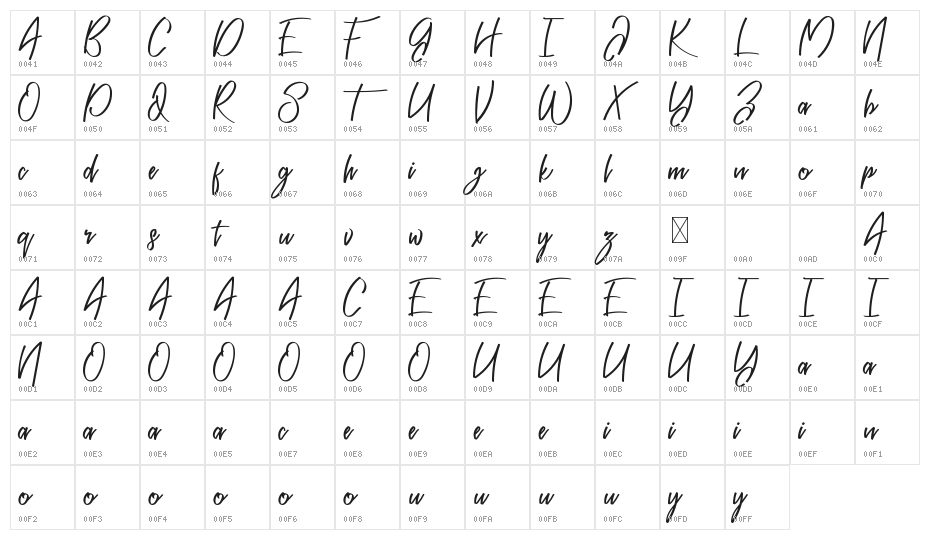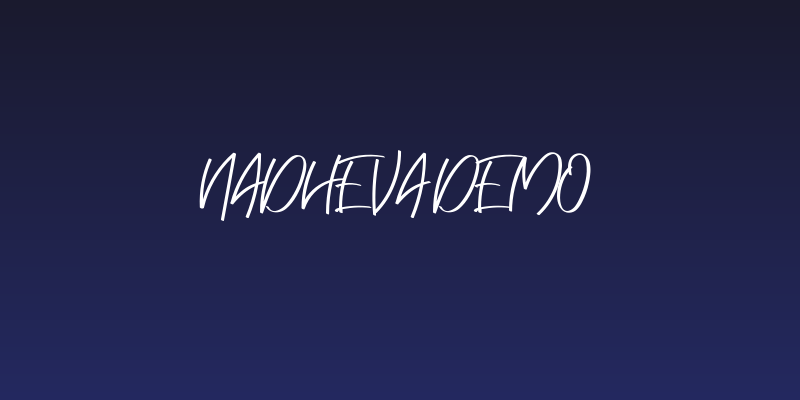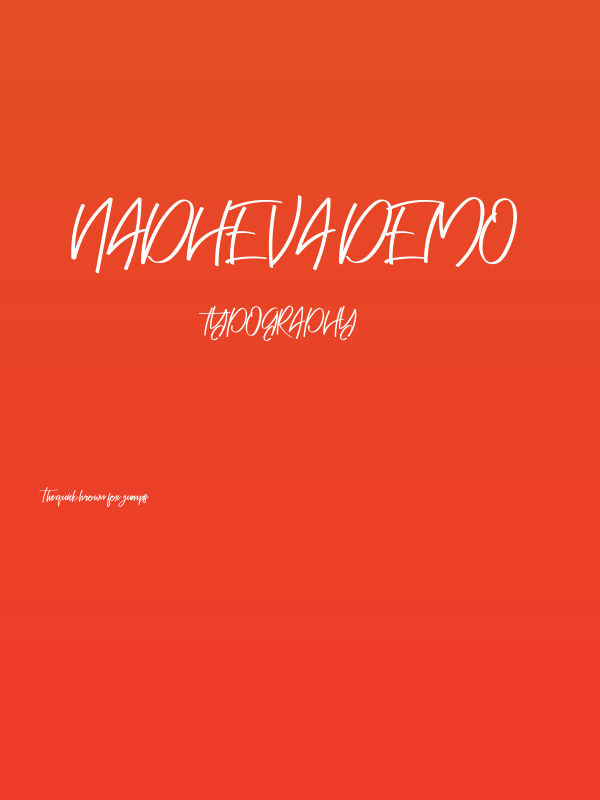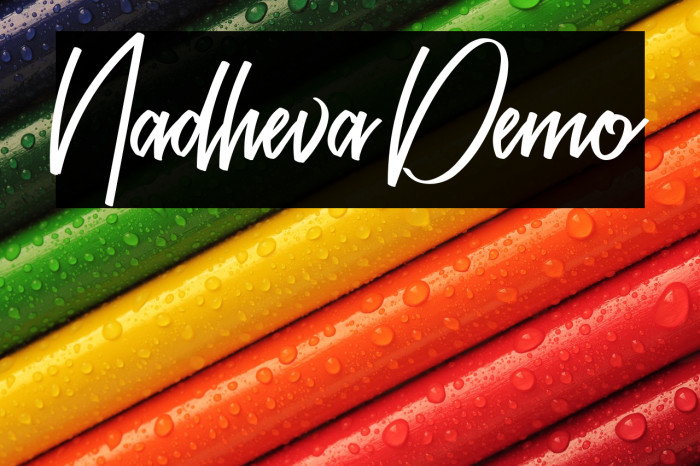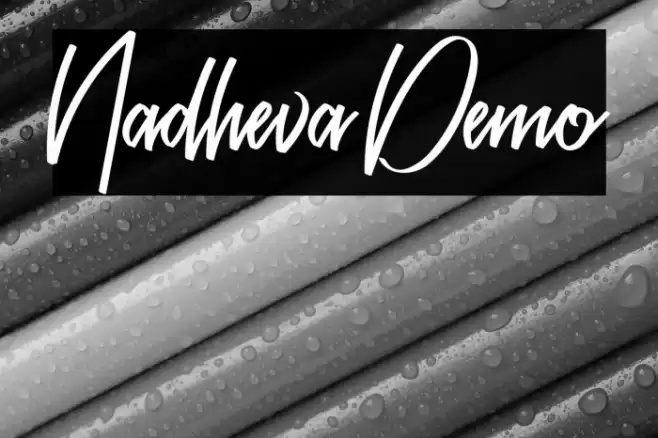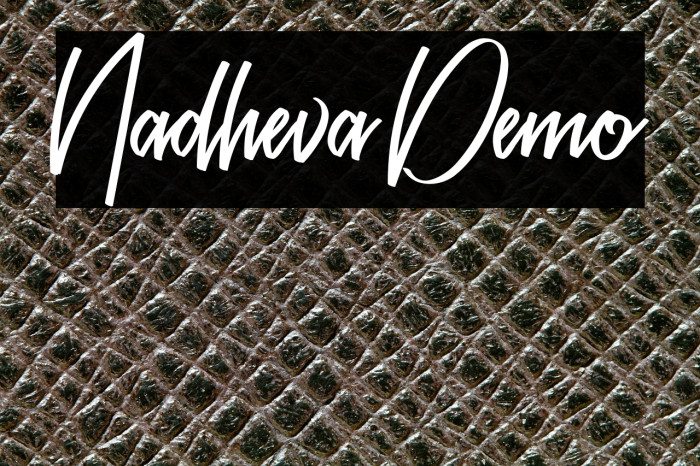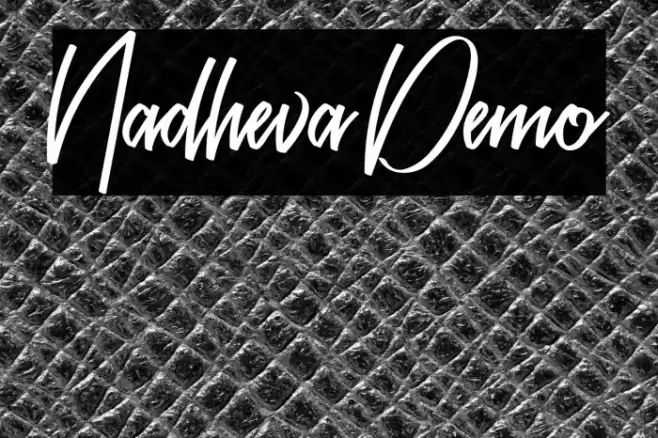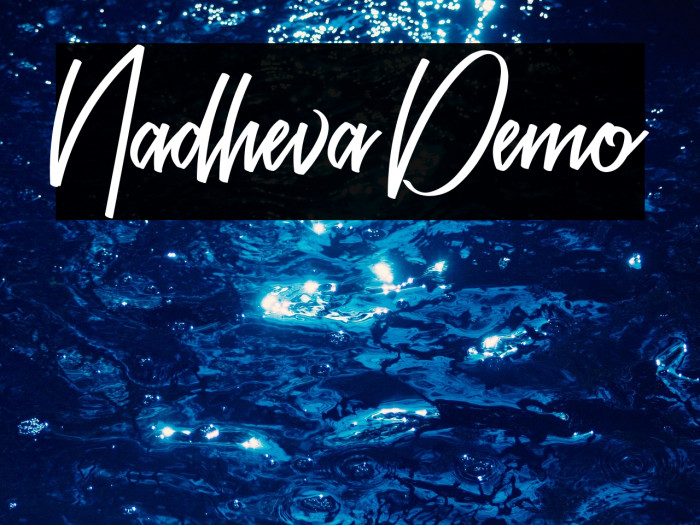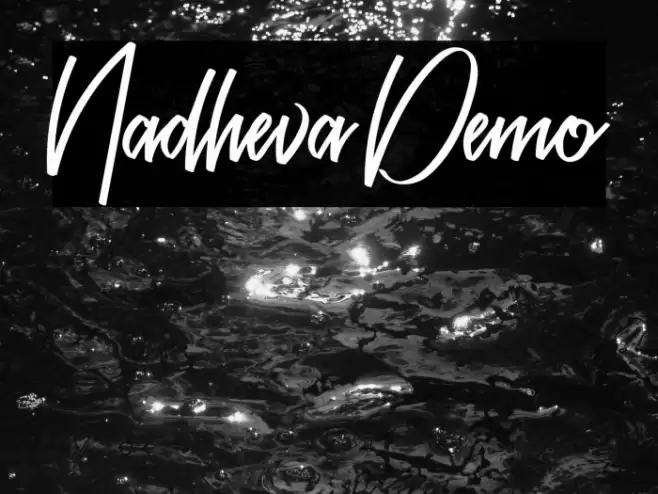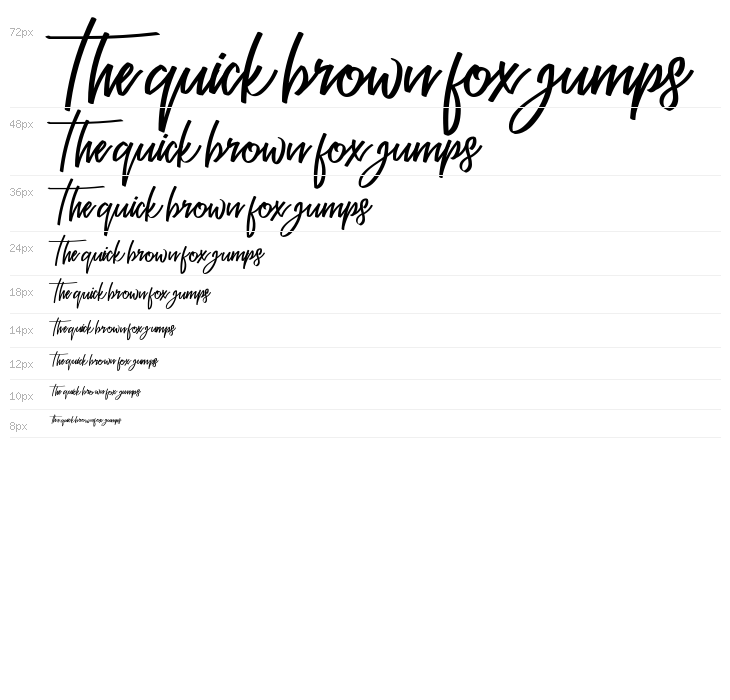
Nadheva Demo Font
This font features a dynamic and flowing script style, characterized by its elegant and fluid letterforms. The uppercase letters exhibit a graceful, sweeping motion with elongated strokes, while the lowercase letters maintain a consistent, cursive flow. The overall appearance is lively and expressive, making it ideal for projects that require a personal touch. The font's design is both sophisticated and approachable, with a modern flair that adds a sense of movement and energy. The characters are well-balanced, offering a harmonious blend of curves and lines that enhance readability while maintaining a stylish aesthetic.
| Use Case | Logos, Invitations, Headlines |
| Proposed Projects | Ideal for wedding invitations, greeting cards, branding, and social media graphics. |